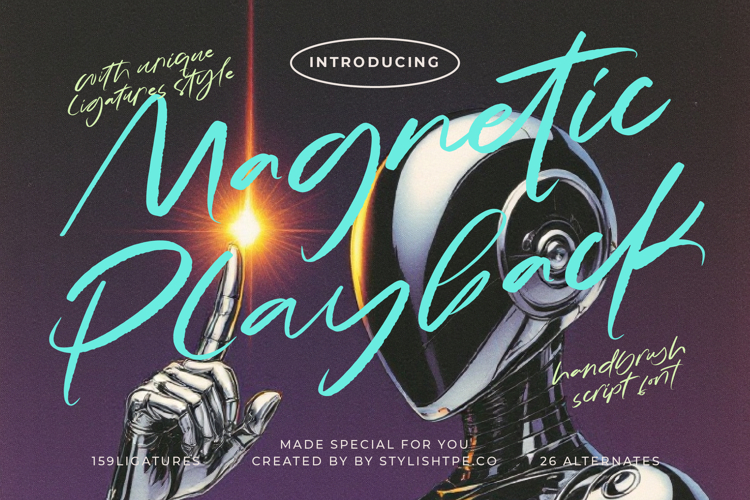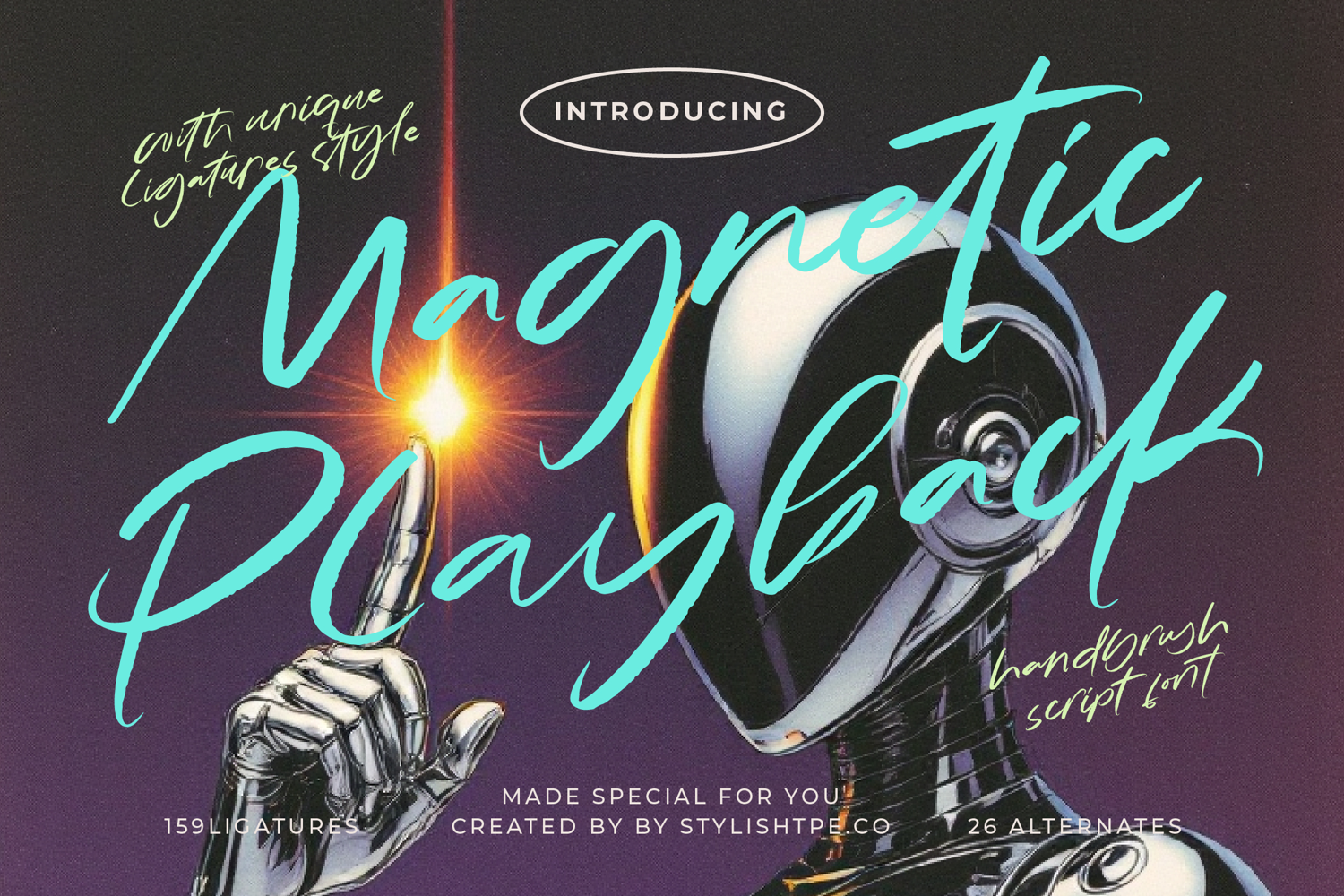
Magnetic Playback - Handbrush Script Font
Magnetic Playback - Handbrush Script Font captures the essence of authentic brushwork, offering organic textures and high-velocity strokes that demand immediate attention. This typeface is engineered for designers who require a hand-painted aesthetic without compromising on professional precision or digital clarity.
Elevate your typographic compositions using an extensive library of custom ligatures and stylistic alternates. With over 159 ligatures, Magnetic Playback - Handbrush Script Font ensures a natural flow and a truly bespoke appearance for every project. By integrating these unique character variations, the font provides a seamless script transition that mimics genuine handwriting, making it an essential tool for high-impact visual communication.